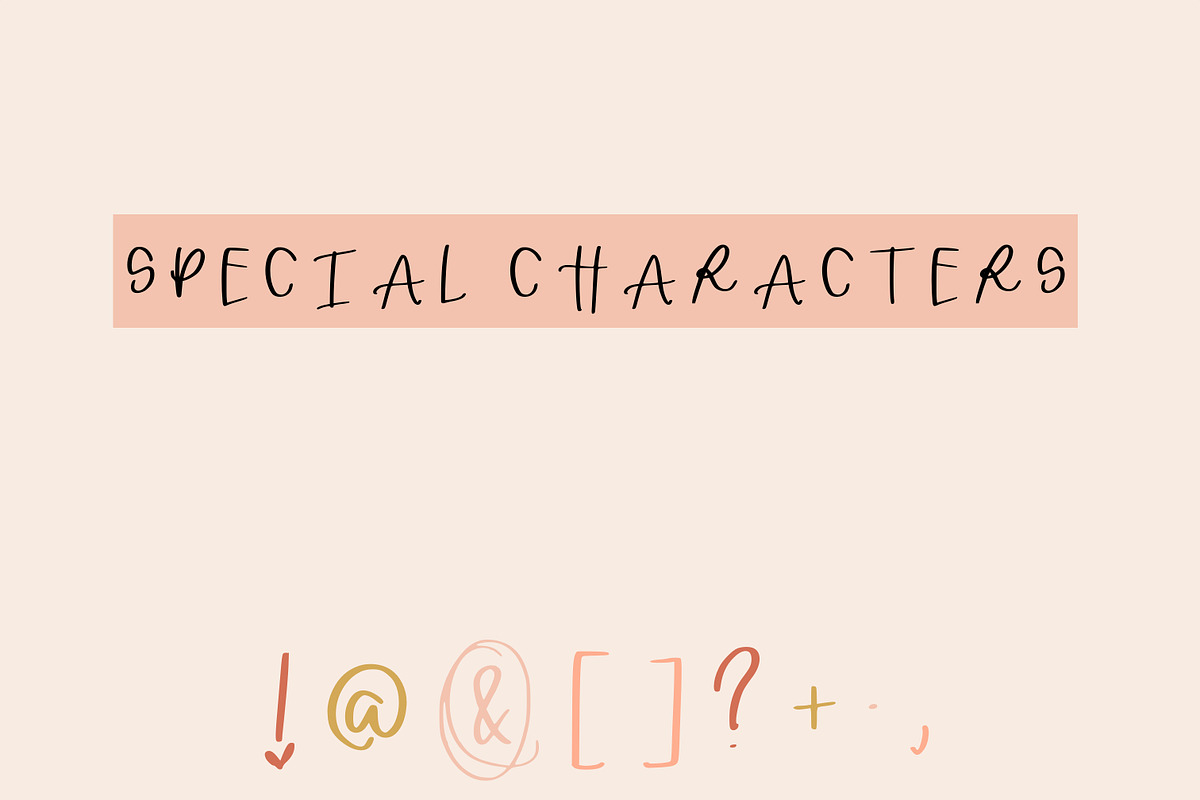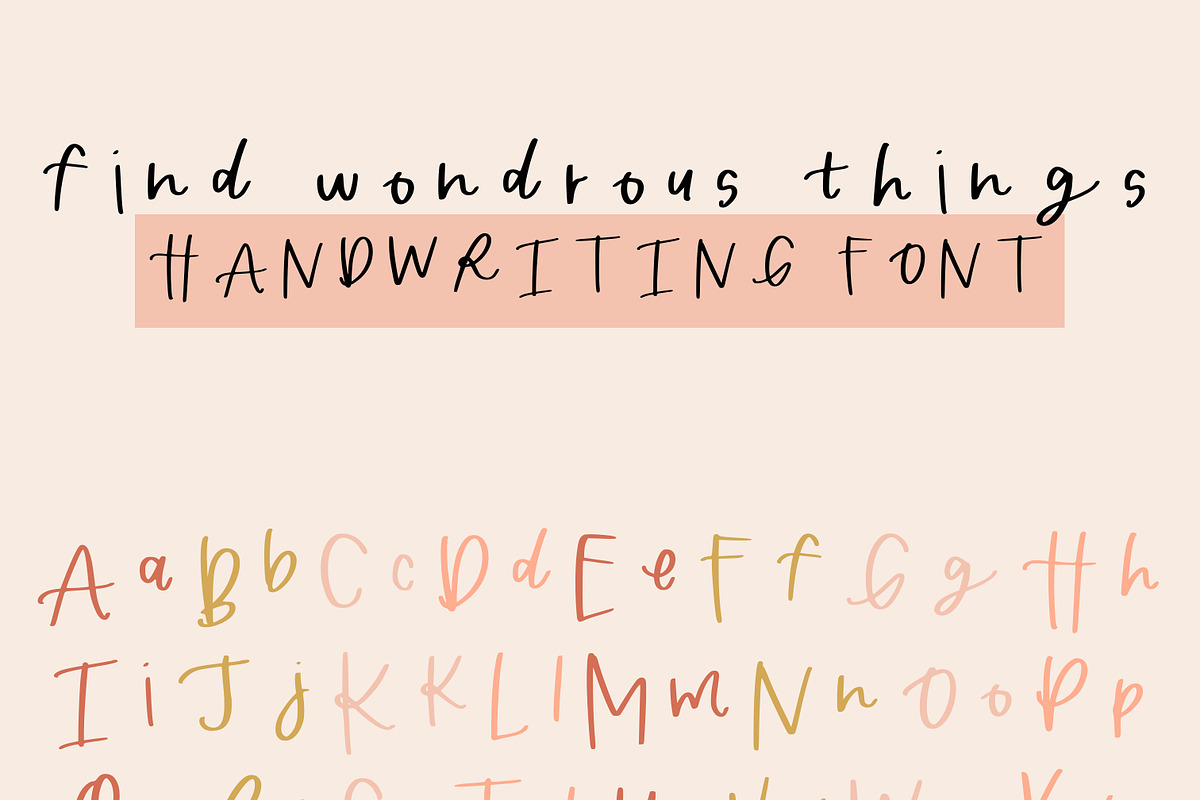
Find Wondrous Things Handwritten
Introducing Find Wondrous Things Handwriting Font, a charming and whimsical typeface.
-Full alphabet with Uppercase and Lowercase A-Z for script